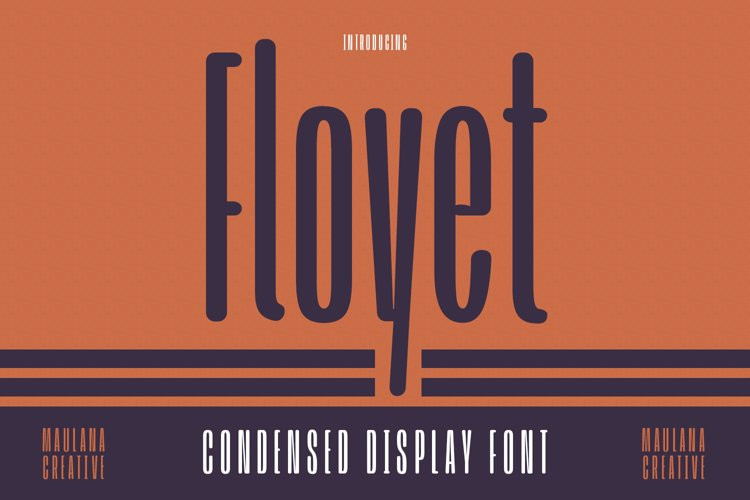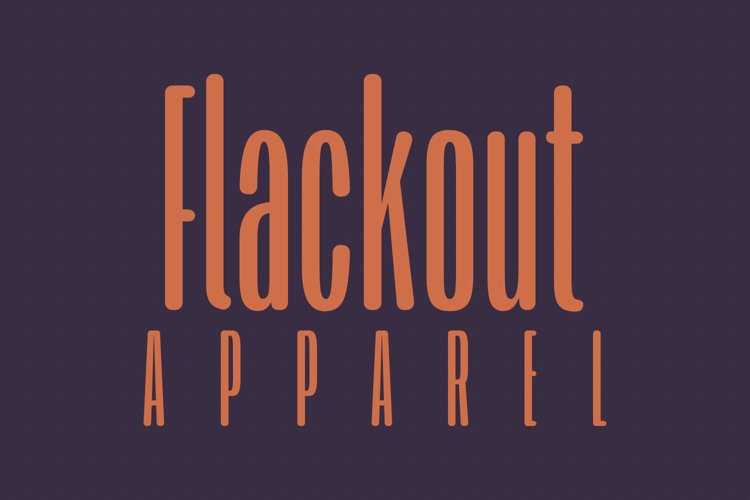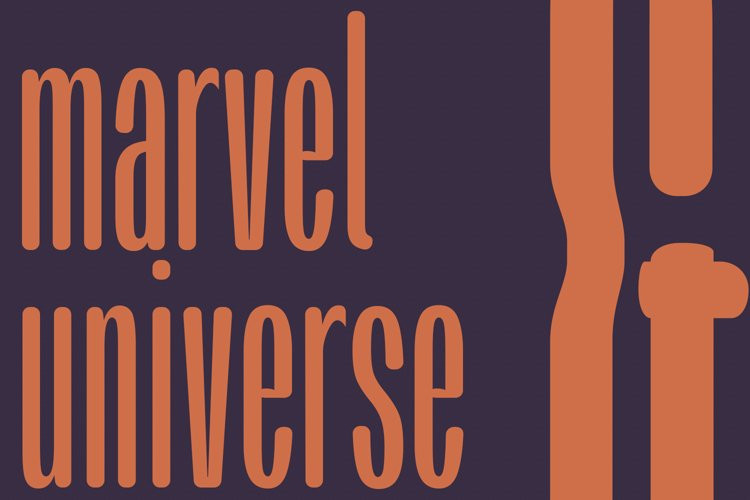
Floyet Font
Floyet FontFloyet is a condensed modern soft sans serif font. With medium stroke, fun character with a bit of ligatures and alternates. To give you an extra creative work. Floyet font support multilingual more than 100+ language. This font is good for logo design, Social media, Movie Titles, Books Titles, a short text even a long text letter and good for your secondary text font with sans or serif. Make a stunning work with Floyet font.